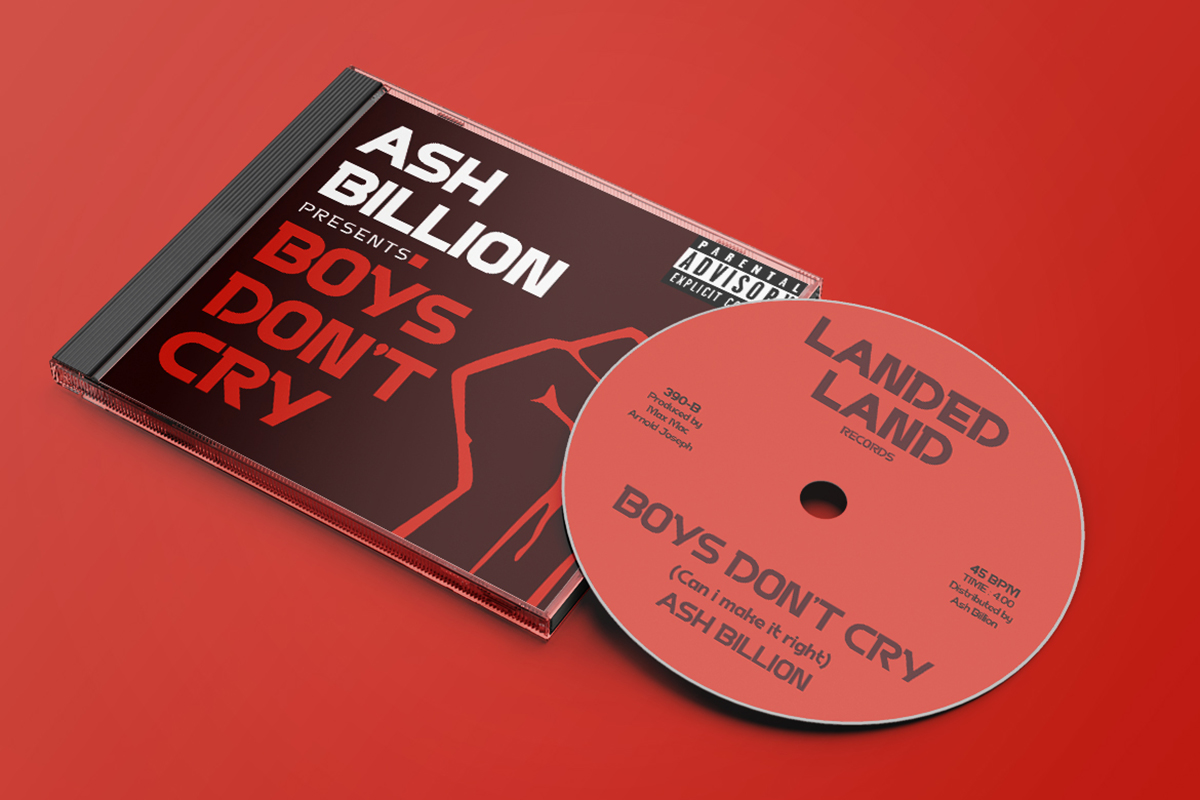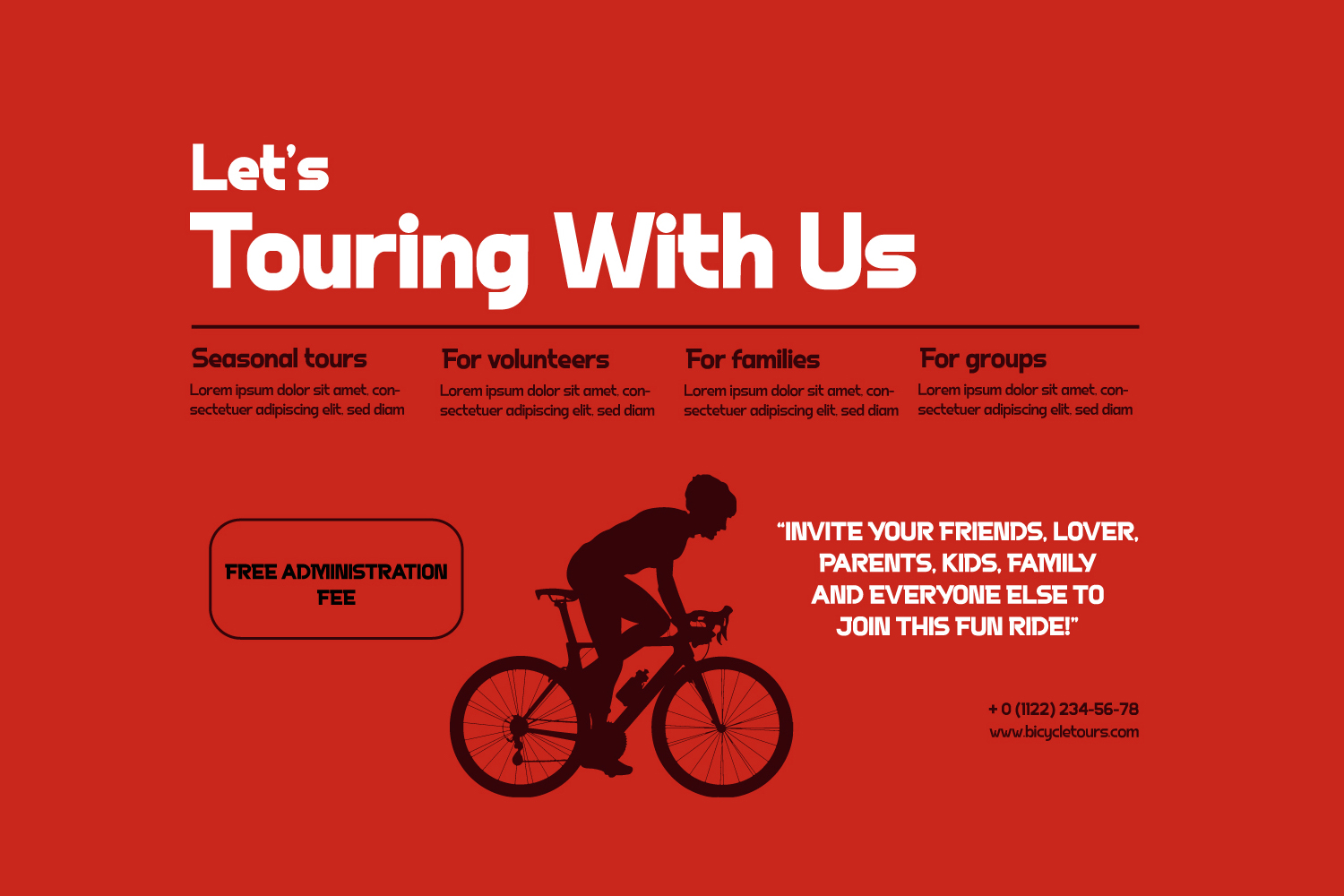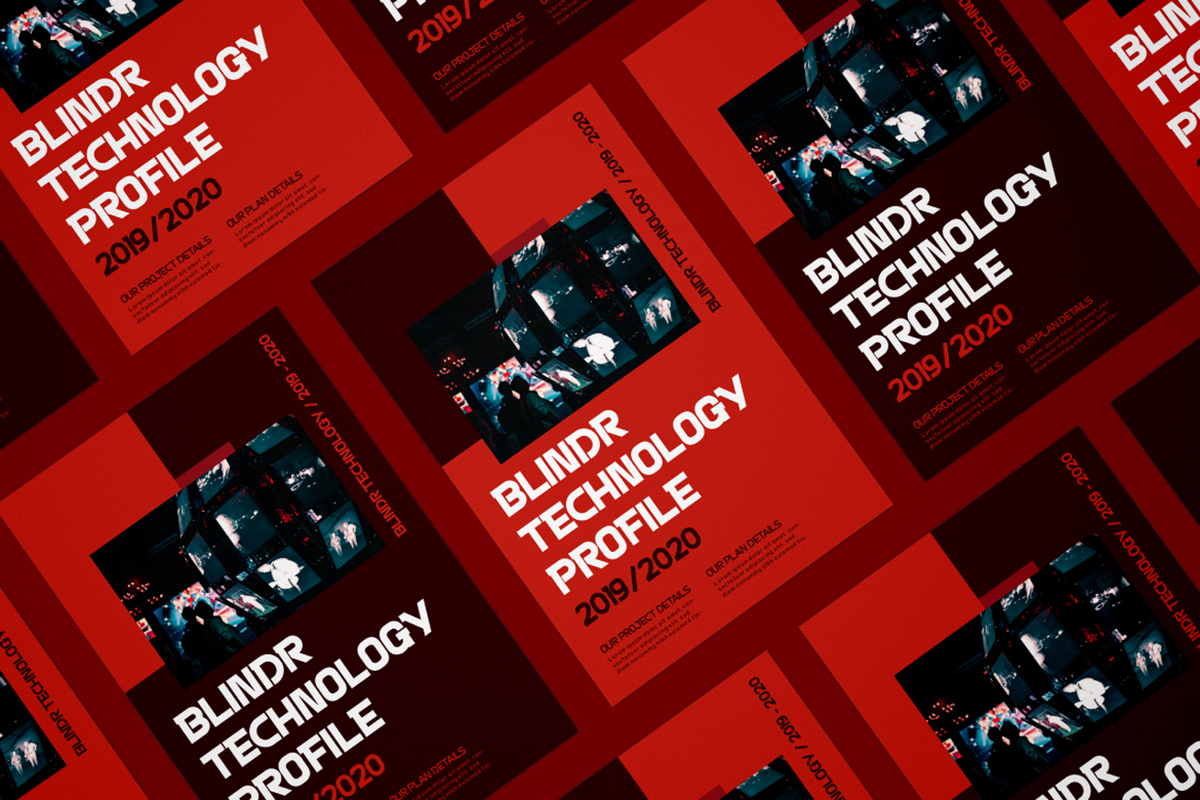
Efrida Free Font
Introducing Efrida Free Font, a stylish and bold display font that exudes a cool retro vibe. Elevate your cherished concepts by incorporating this distinctive font and observe how effortlessly they command attention. Employ Efrida font in your design endeavors to unlock its boundless potential and embark on a journey of creative exploration. This free typeface was designed by a talented Twin Letter. If you like it don’t forget to check out the full version.